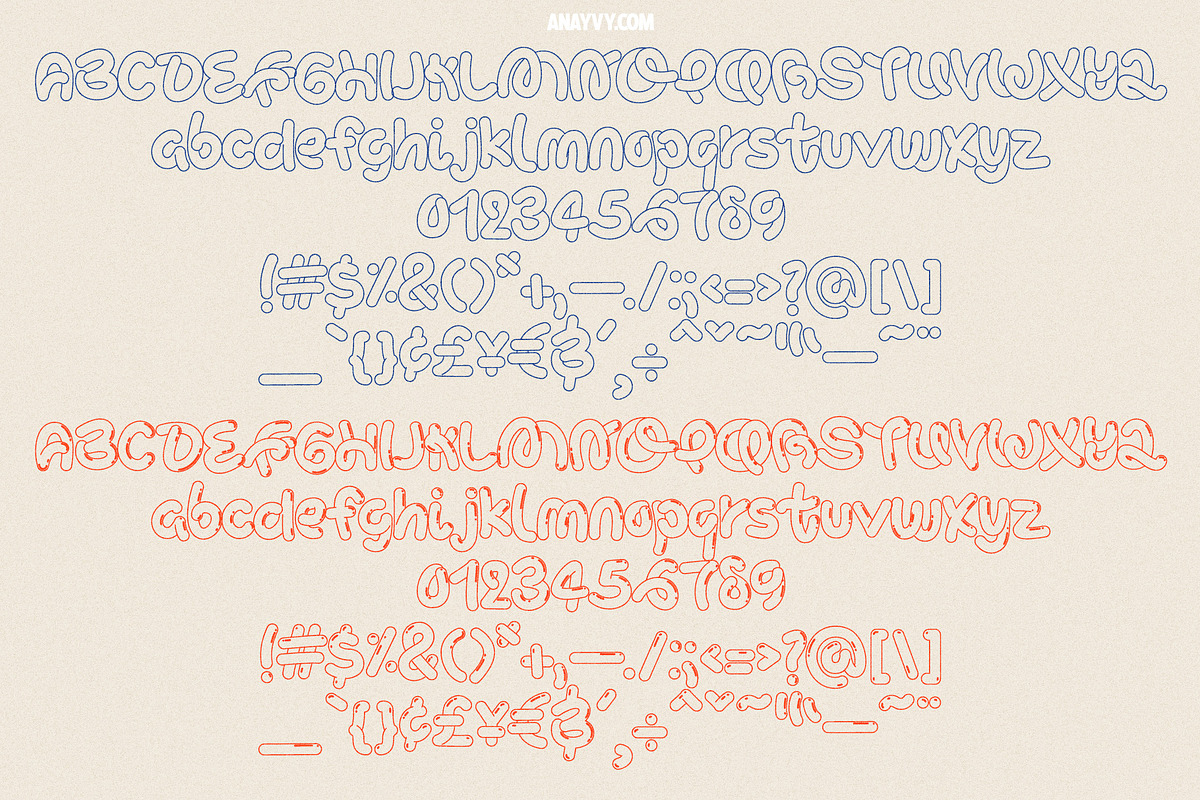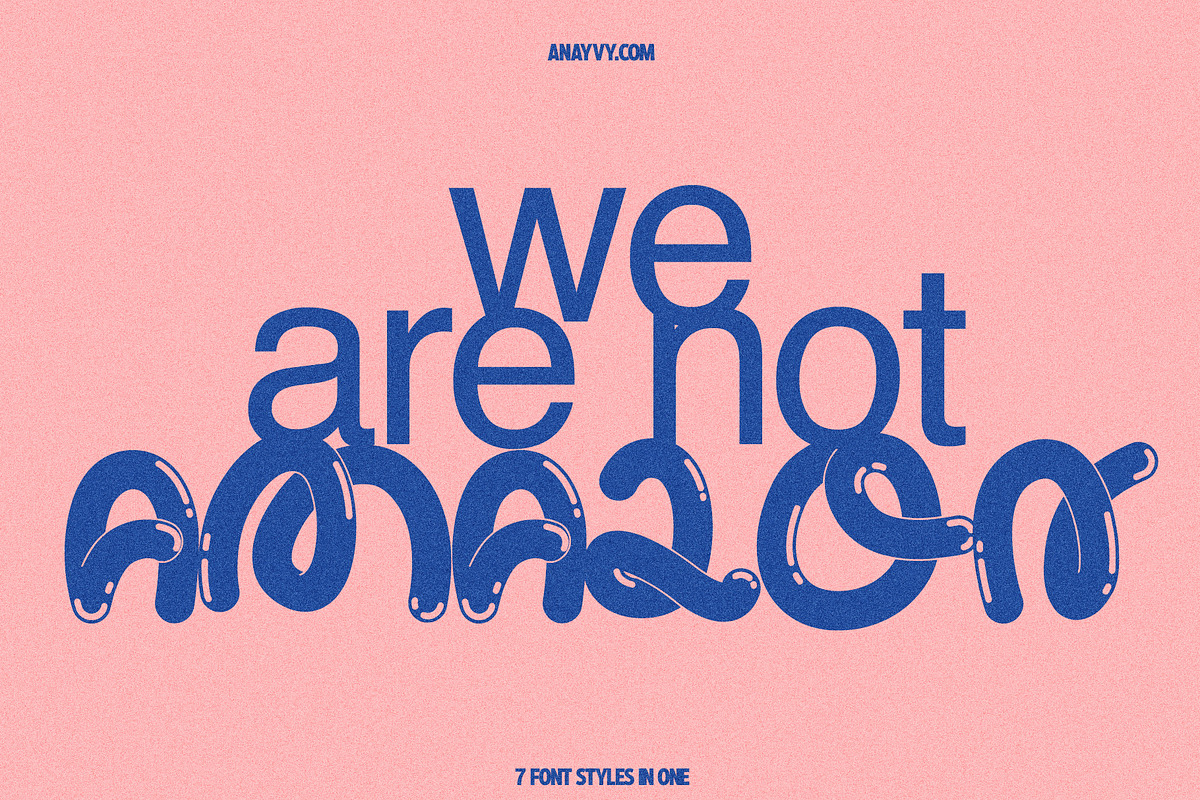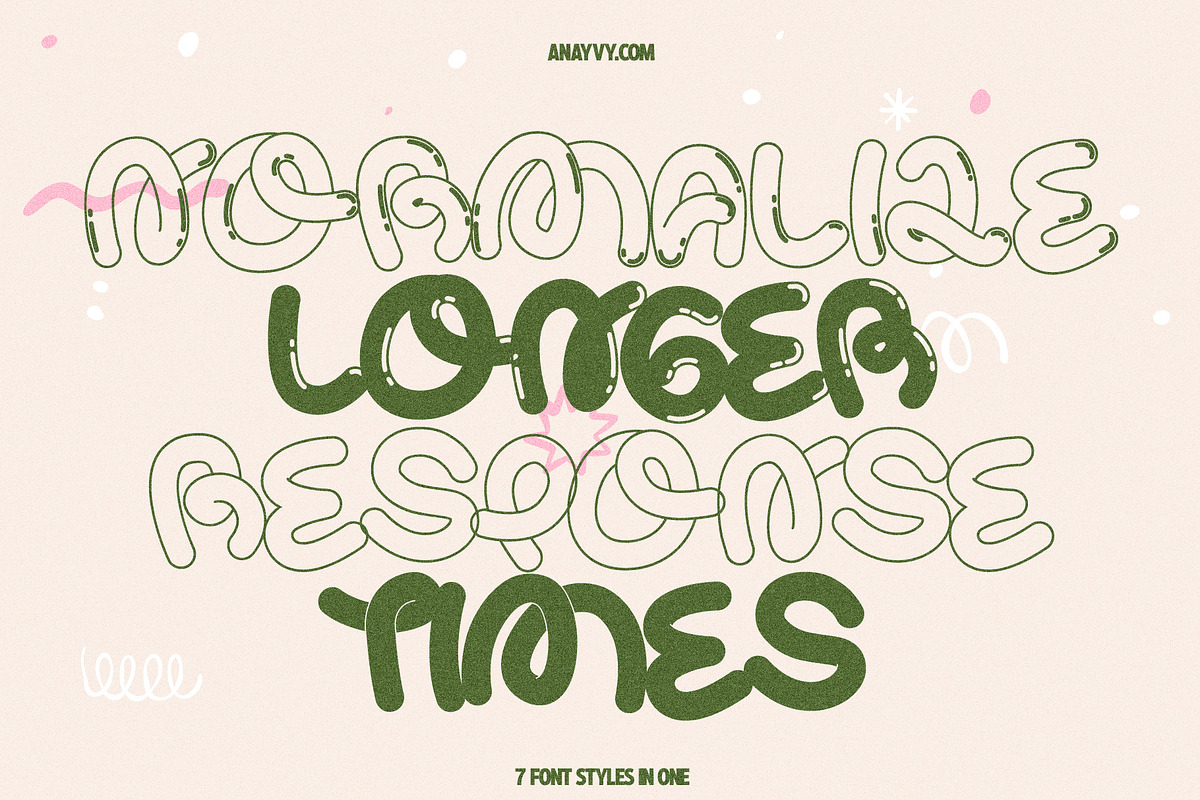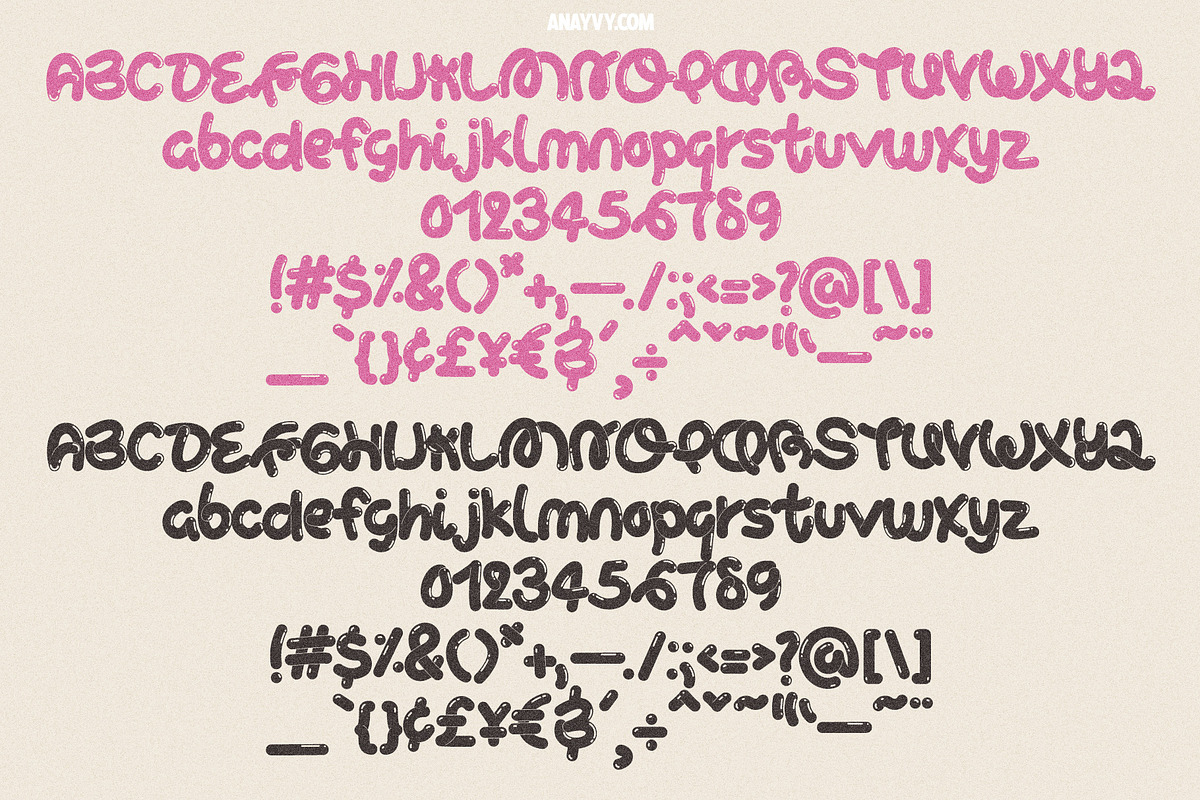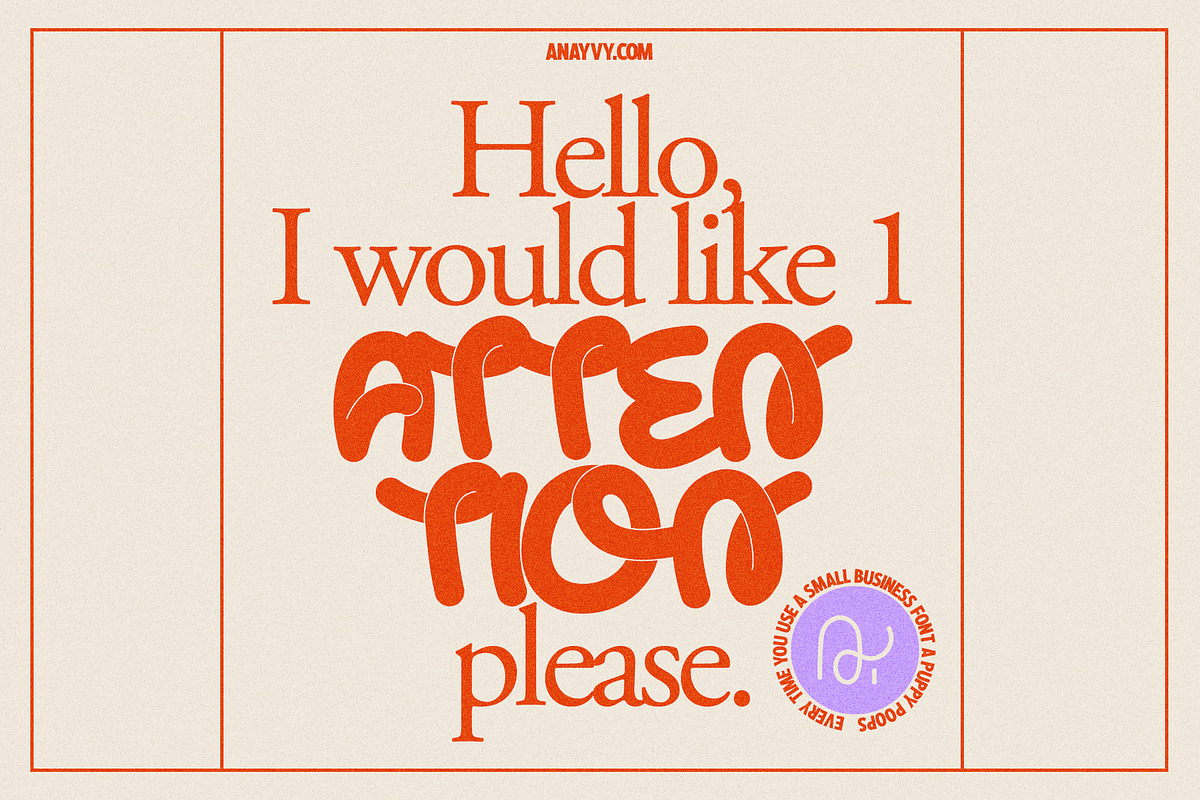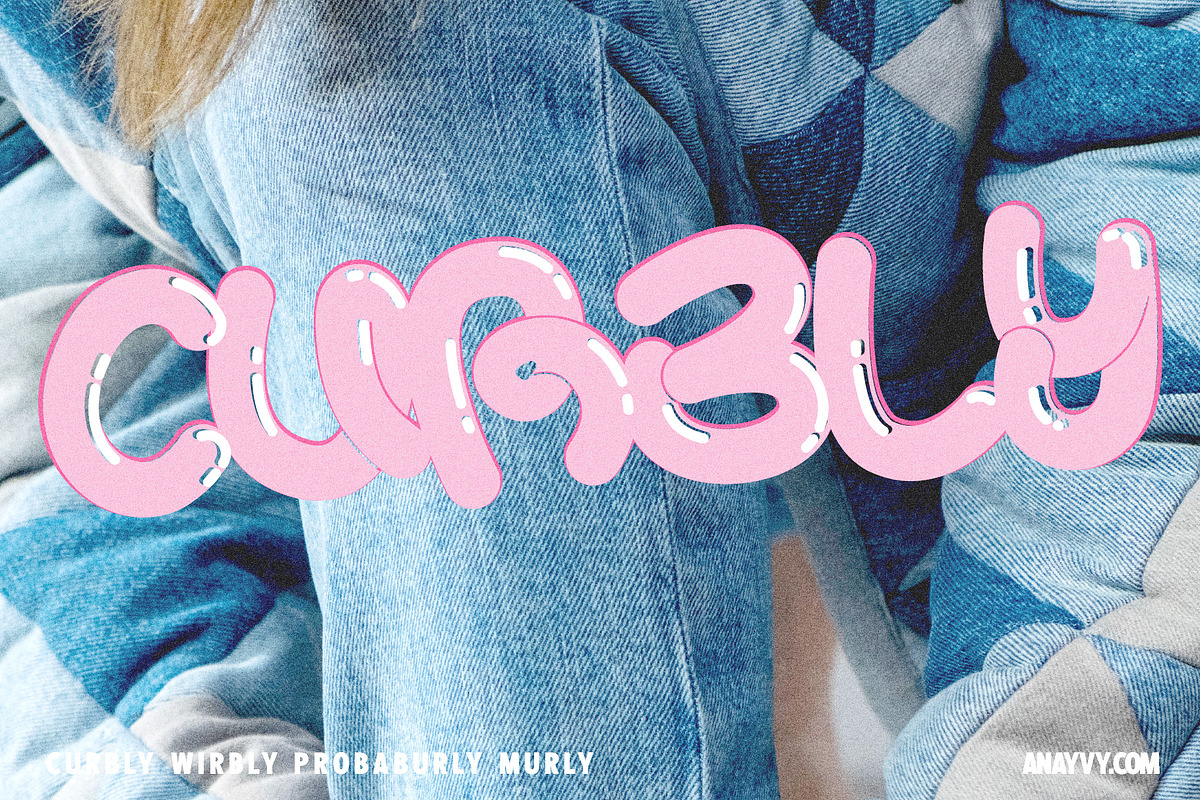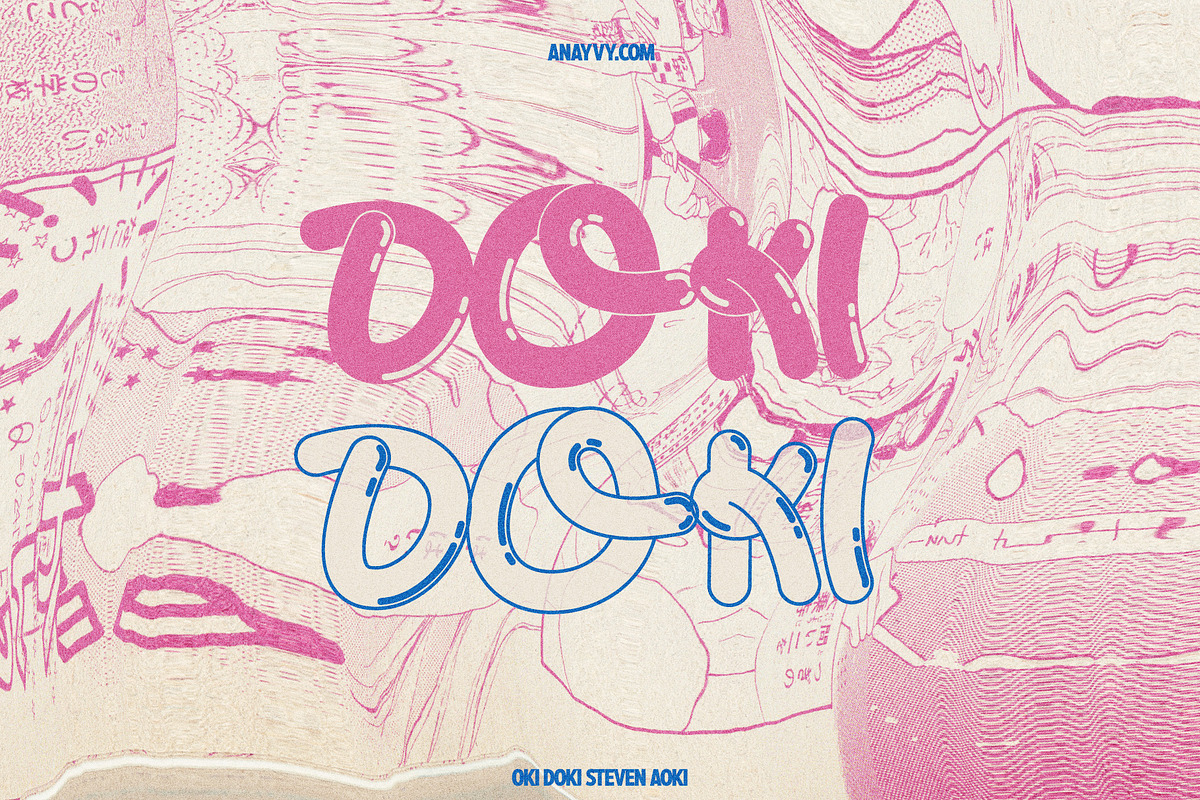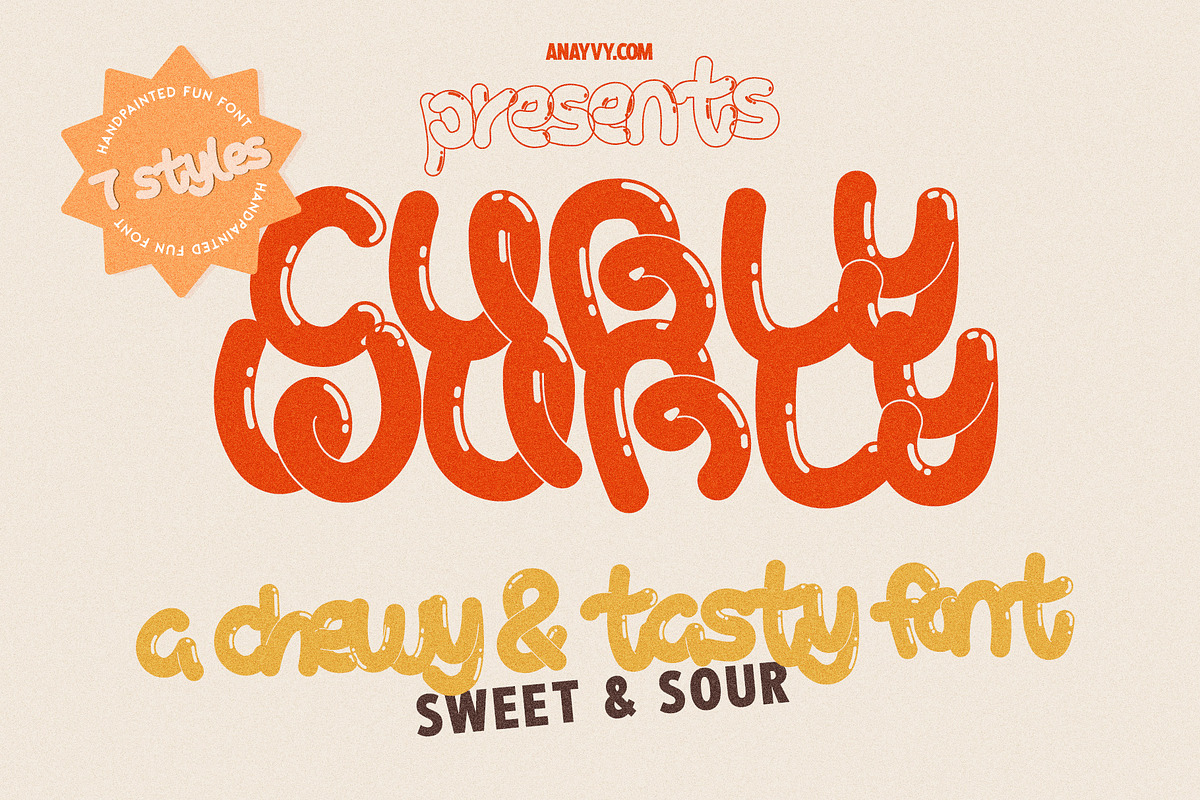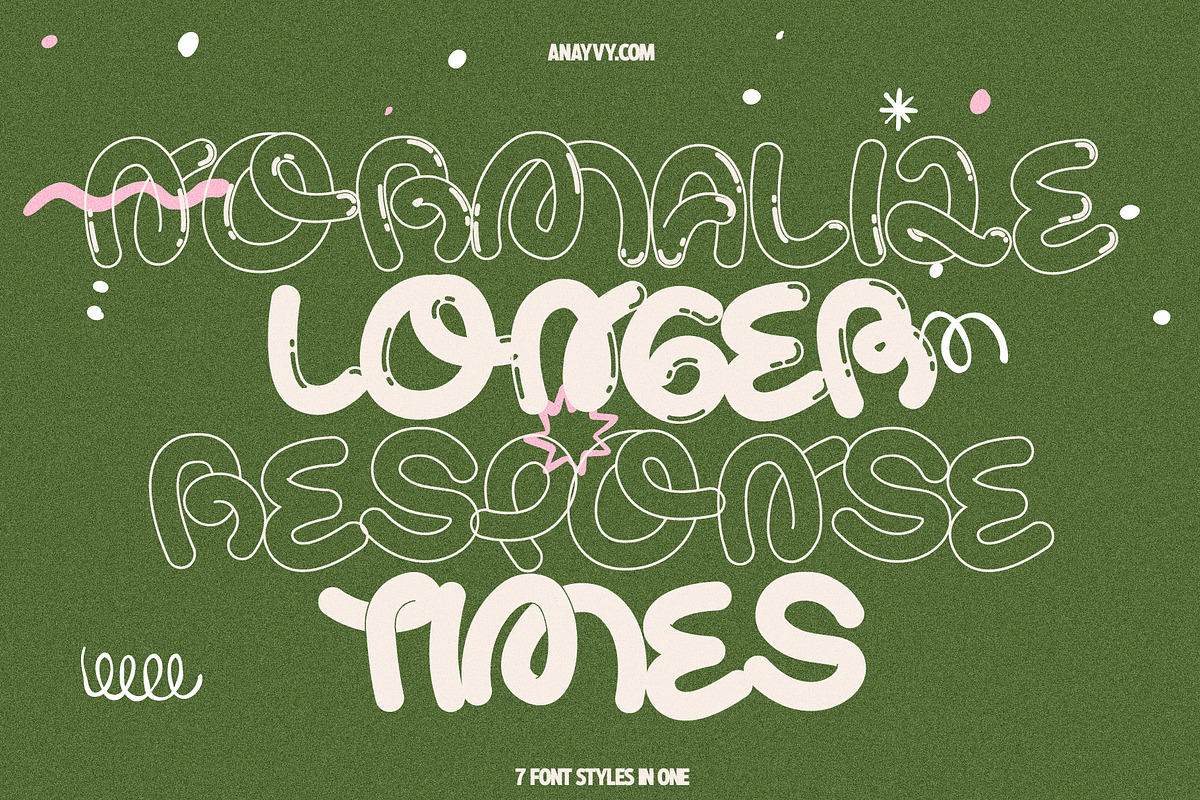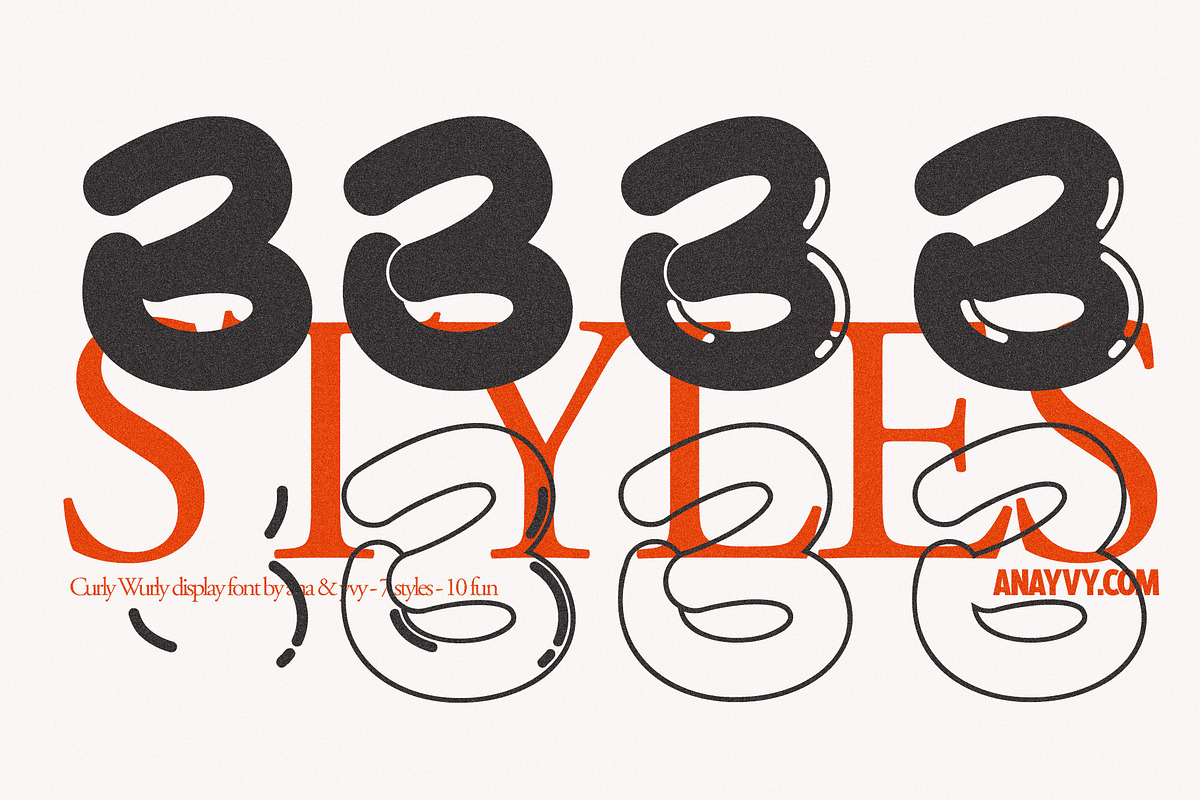
Curly Wurly | Retro Display Bubble
Curly Wurly - a 90s & 2000 inspired editorial graffiti kid font family with 8 styles. Yummy Gummy in vector quality.
solid - black base
solid dimensional - cutout
solid dimensional gloss - cutout gloss
solid gloss - gloss
outline - outline simple
outline dimensional - outline overlay
outline dimensional gloss - outline gloss